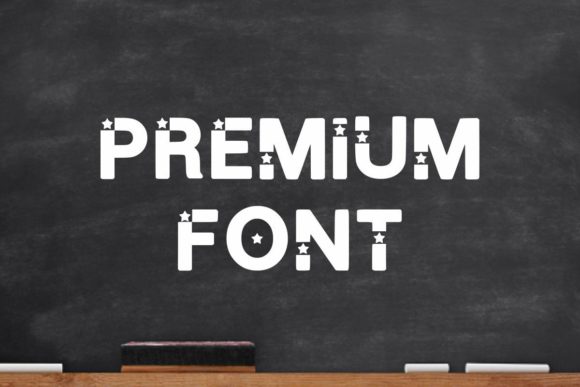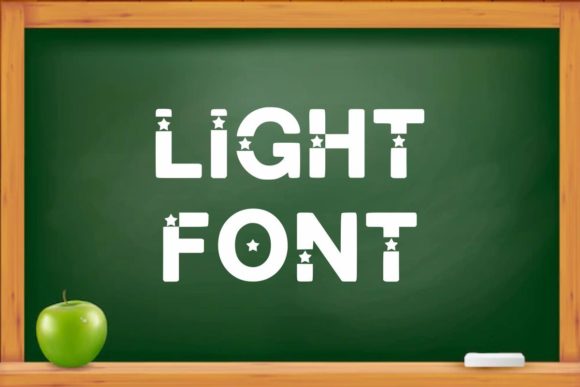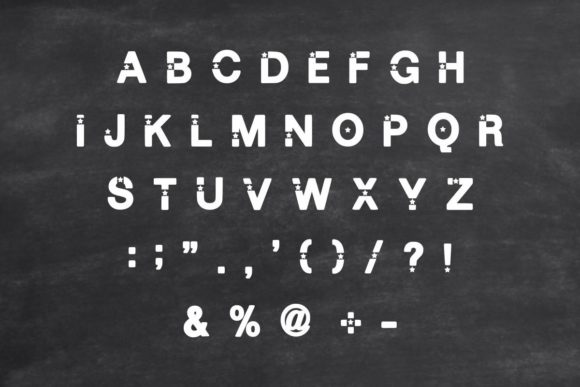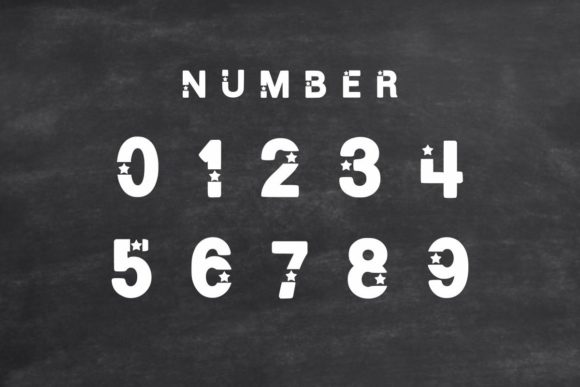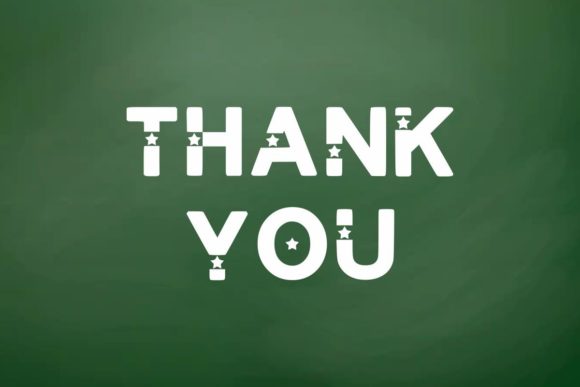
Introduction to Light Shine Font
As the snowflakes gently fall outside, a spark of creativity ignites within us. It’s that time of the year when we get to indulge in festive projects, and I’m excited to share with you a design resource that’s sure to shine bright in your winter and holiday branding endeavors – the Light Shine Font.
This fun and bold display font is a game-changer for any creative project. With its star shape elements, it’s perfect for adding a touch of whimsy and magic to your designs. Whether you’re working on product packaging, invitations, quotes, or logos, the Light Shine Font is a high-quality design resource that’s sure to elevate your work.
Key Features of Light Shine Font
- High-quality design: The Light Shine Font is a premium-quality design resource perfect for creative projects requiring a touch of elegance.
- Unique characteristics: The font’s unique shine effect and elegant design make it stand out from other fonts, adding a touch of sophistication to any creative project.
Honest Review: Light Shine Font
As a designer, I’m always on the lookout for high-quality design resources that can elevate my creative projects. I recently came across the Light Shine Font, and I have to say, it’s a great addition to any design library.
- High-quality typography: The Light Shine Font boasts beautiful, crisp lines and a clean design that’s perfect for modern creative projects.
While the Light Shine Font is a great resource, I do have a few minor complaints:
- Limited font styles: The font only comes in a few different weights, which may limit its versatility in certain design projects.
- No italics: Unfortunately, the font doesn’t include any italic styles, which can be a drawback for designers who need to create emphasis.
Overall, I’m impressed with the Light Shine Font, and I think it’s a valuable addition to any design library. While it may have a few limitations, its high-quality typography and free download make it a great resource for designers of all levels.
How to Use Light Shine Font
The Light Shine Font is a high-quality design resource perfect for any creative project. With its sleek and modern aesthetic, this font is ideal for use in a variety of applications, including digital design, graphic design, and even web design.
Tips for Getting the Most Out of the Light Shine Font